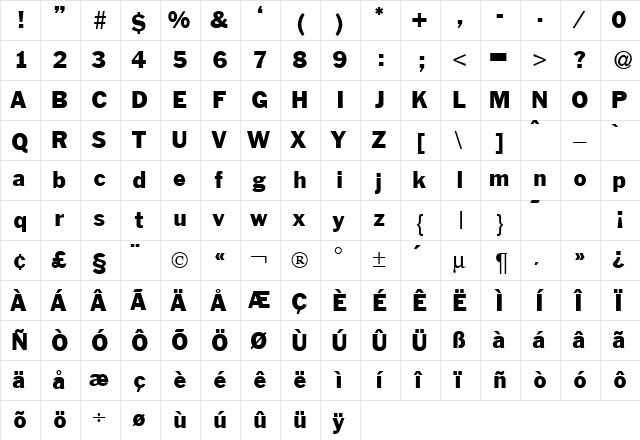
Frapant Normal
Design Context for Frapant Typeface
Frapant offers clean, dependable letterforms without strong stylistic allegiance, making it a practical choice for designers who need flexibility.
Pro Tip: Pair Frapant with a font of contrasting weight or personality to build a more expressive typographic hierarchy.